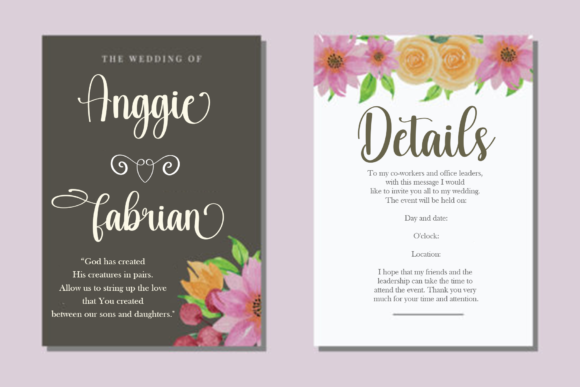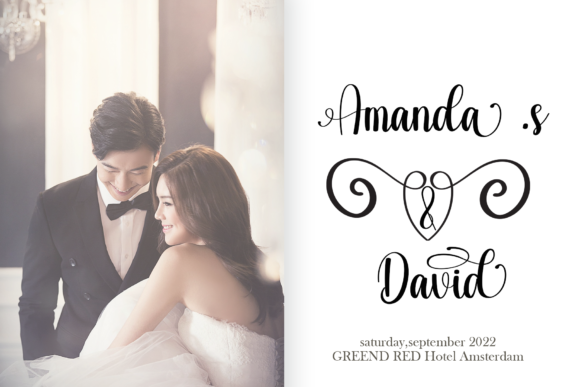
Special Ability Font
db-ku.com - Script & Handwritten -- Special Ability is a simple, quirky, and adaptable handwritten font. You can successfully add this elegant font on wedding invitations, business cards, greetings cards, social media posts, wall art, and more.